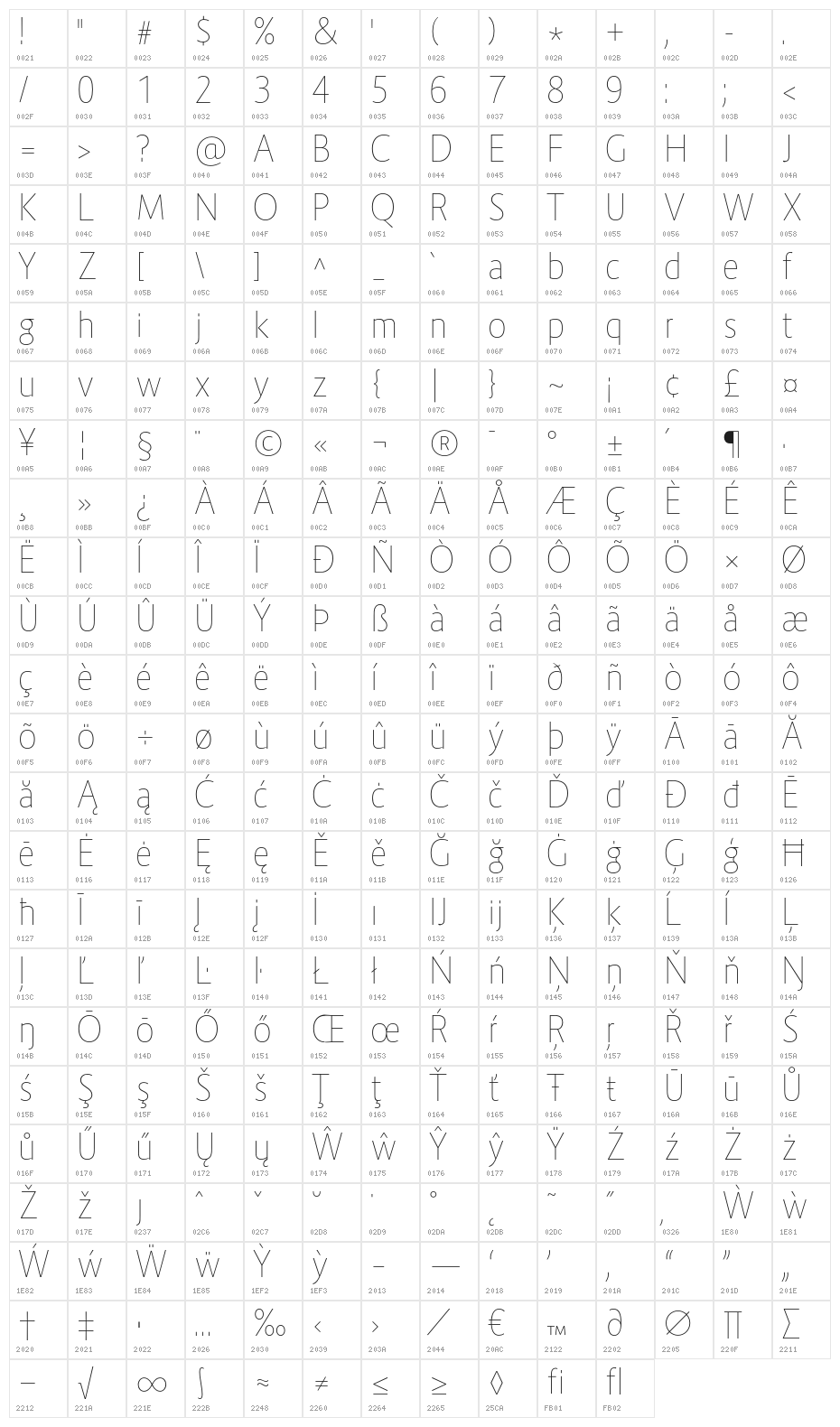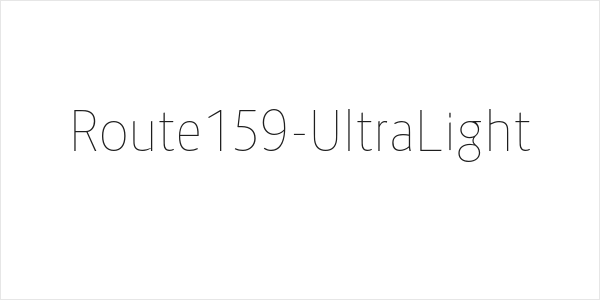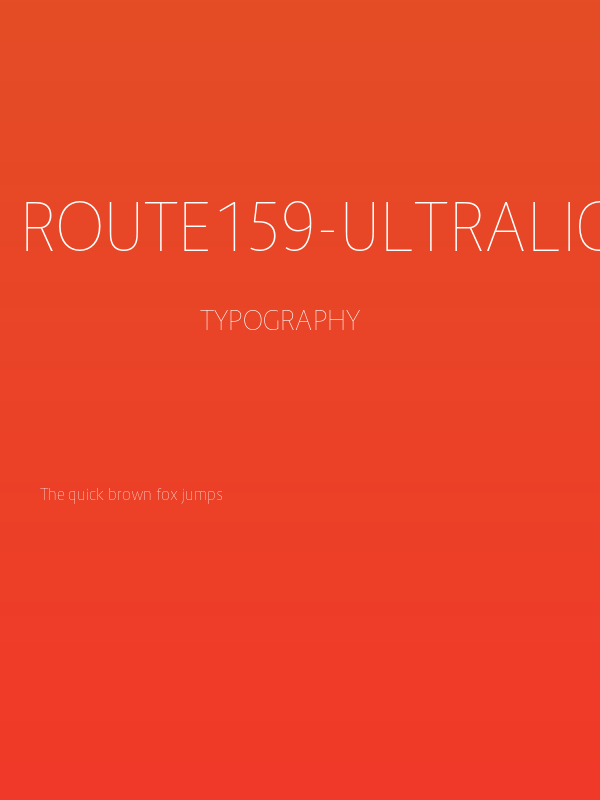
Route159-UltraLight Font
Route159-UltraLight Description
This font exhibits a sleek and ultra-light design, characterized by its thin strokes and minimalist aesthetic. The uppercase and lowercase letters maintain a consistent height, contributing to a harmonious and balanced appearance. The numerals are clear and legible, making them suitable for various applications. Special characters are included, offering versatility for different contexts. The overall design is modern and elegant, with a focus on simplicity and readability. This font is ideal for projects that require a clean and sophisticated look.
| Proposed Projects | Ideal for branding, editorial design, digital interfaces, and minimalist posters. |